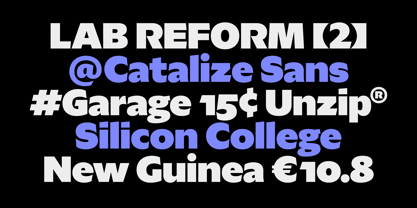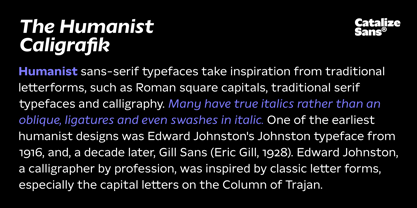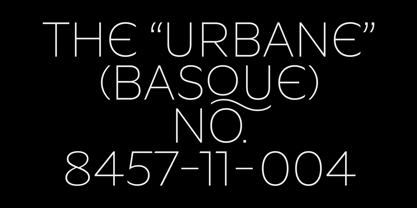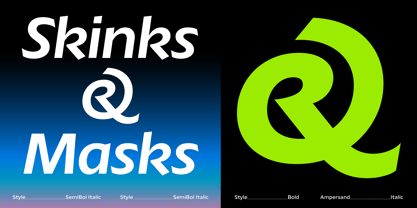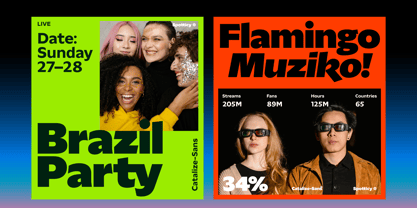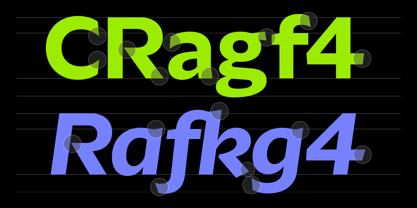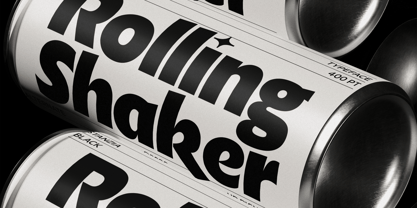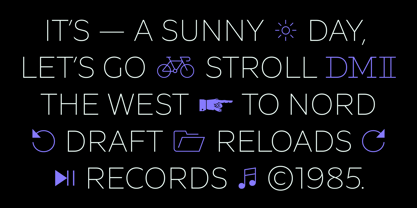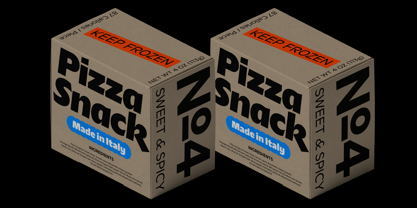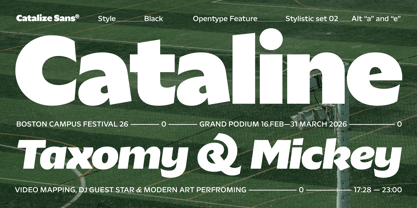
Catalize
by Degarism Studio
The Catalize Font Family was designed by Deni Anggara and published by Degarism Studio. Catalize contains 20 styles and family package options. More about this family
Catalize typeface, a Sharp Geometry, Bold Expression A contemporary geometric display typeface shaped through a humanist approach and informed by technical calligraphic construction. It combines sharp, assertive forms with refined proportions, creating a striking visual presence with a subtle sense of rhythm and balance. Defined by its crisp geometry and strong character, Stanzia delivers a bold and confident tone ideal for impactful typography. The sharp details contribute to a distinctly modern and contemporary feel, while its smooth transitions maintain a harmonious and sophisticated appearance. Designed primarily for display use, Stanzia excels in headlines, branding, posters, and large-scale visual communication. It brings clarity and personality to editorial layouts, creative direction, and identity systems that demand attention. Stanzia Italic has been carefully developed as a true italic, fully redrawn to introduce dynamic movement and expressive contrast. It enhances visual tension and adds a refined typographic voice, making it especially powerful in display compositions. The family includes 18 static styles from Thin to Black, along with two variable fonts (Roman and Italic), offering flexibility for dynamic and scalable design systems. It also includes OpenType features and extended language support. A bold geometric display typeface with a humanist soul crafted for designers who seek sharp expression, modern clarity, and visual impact.